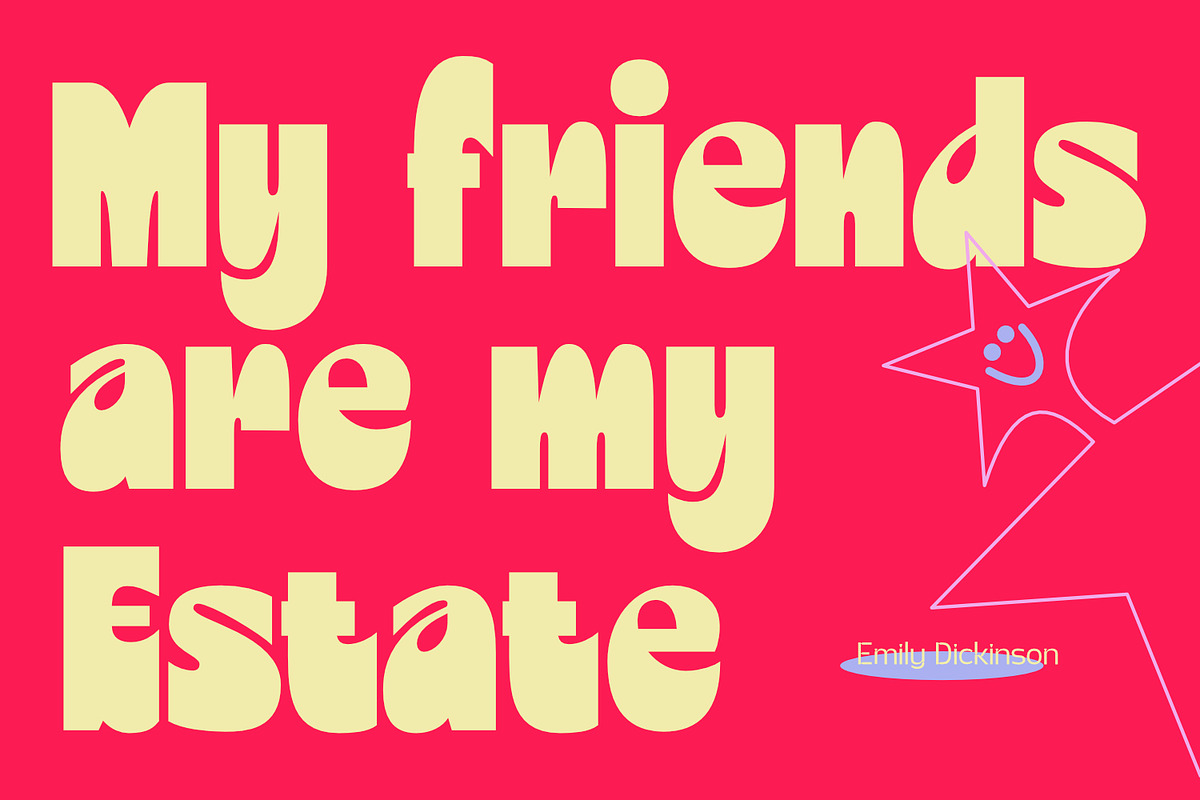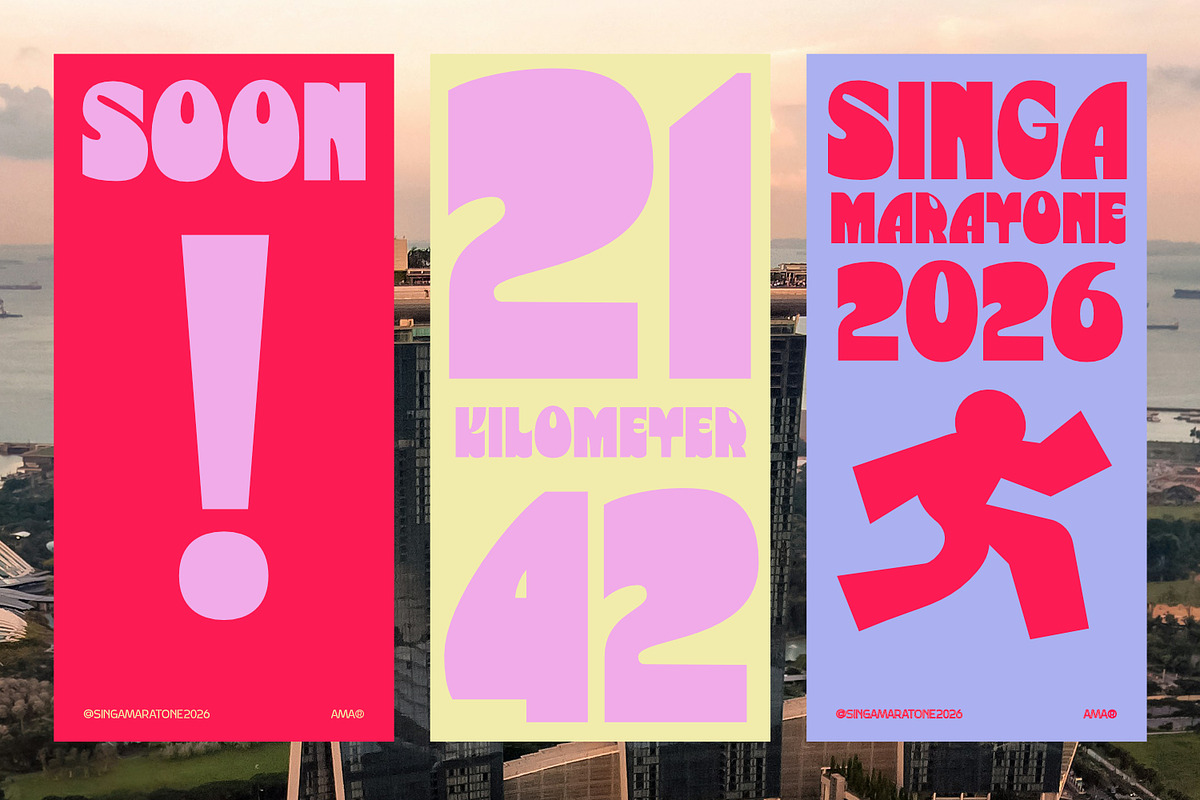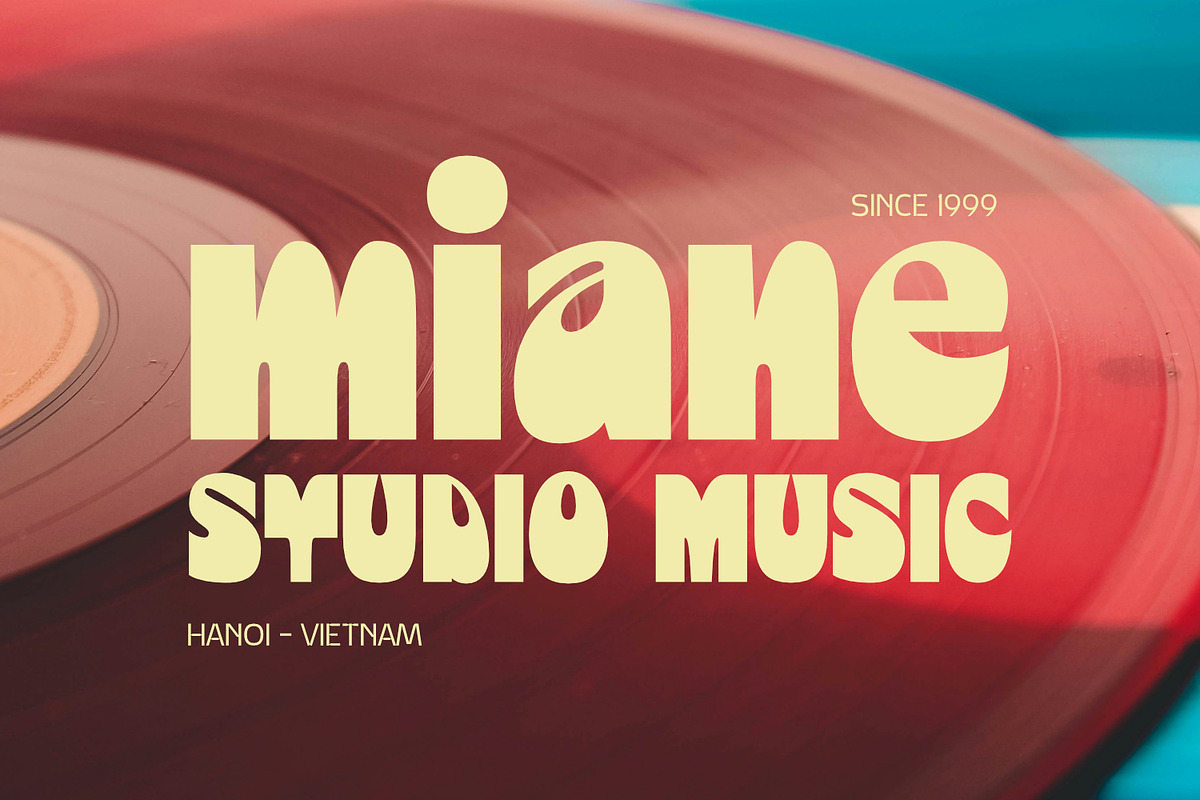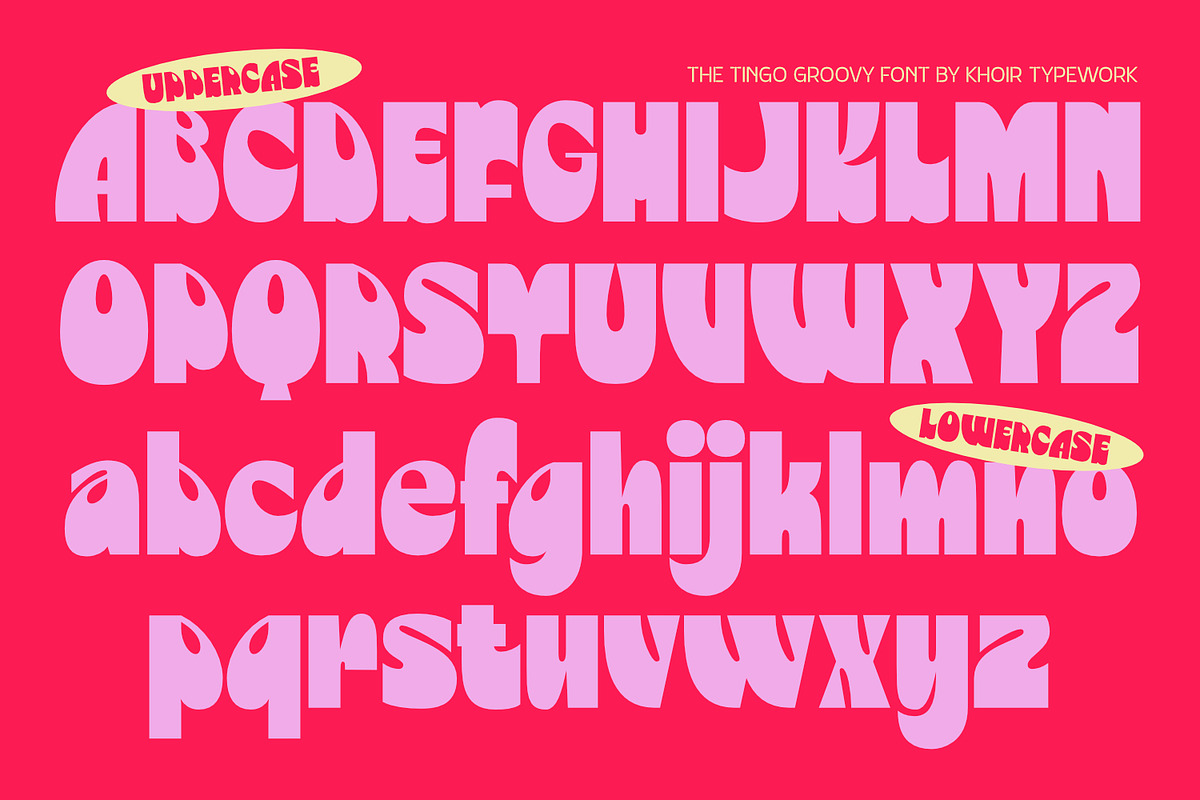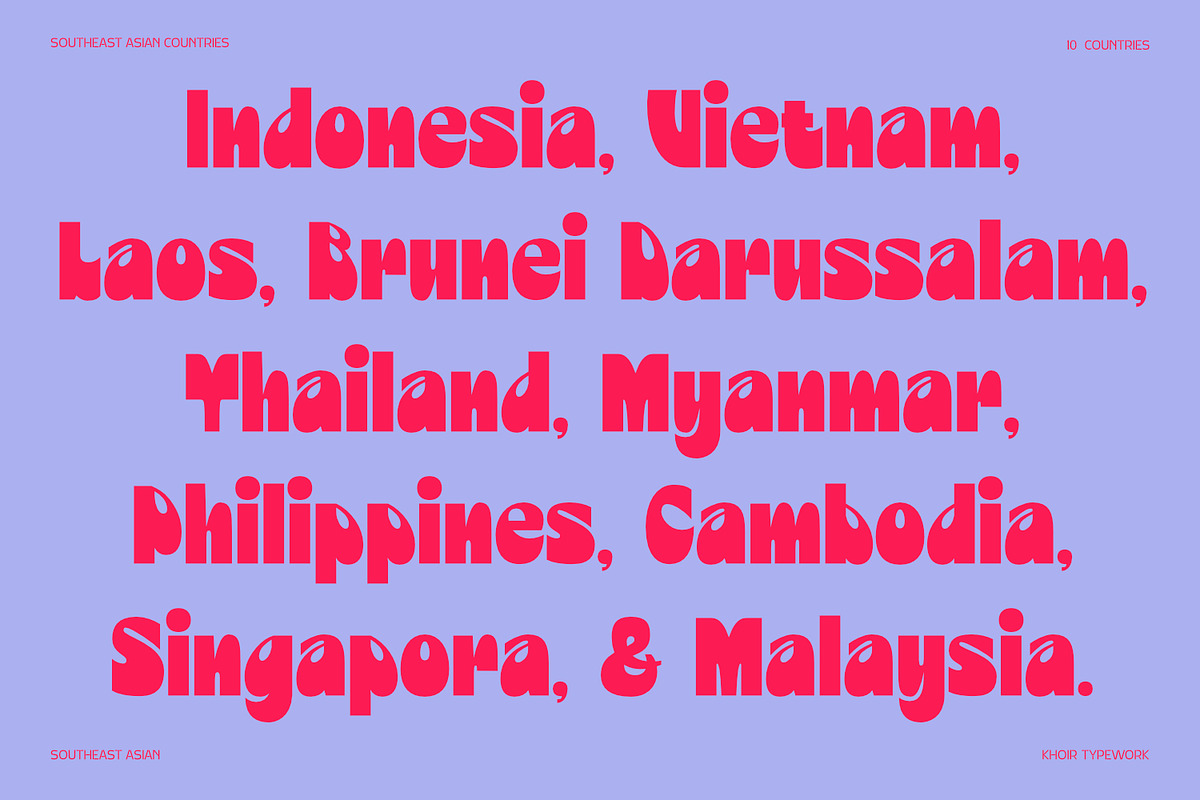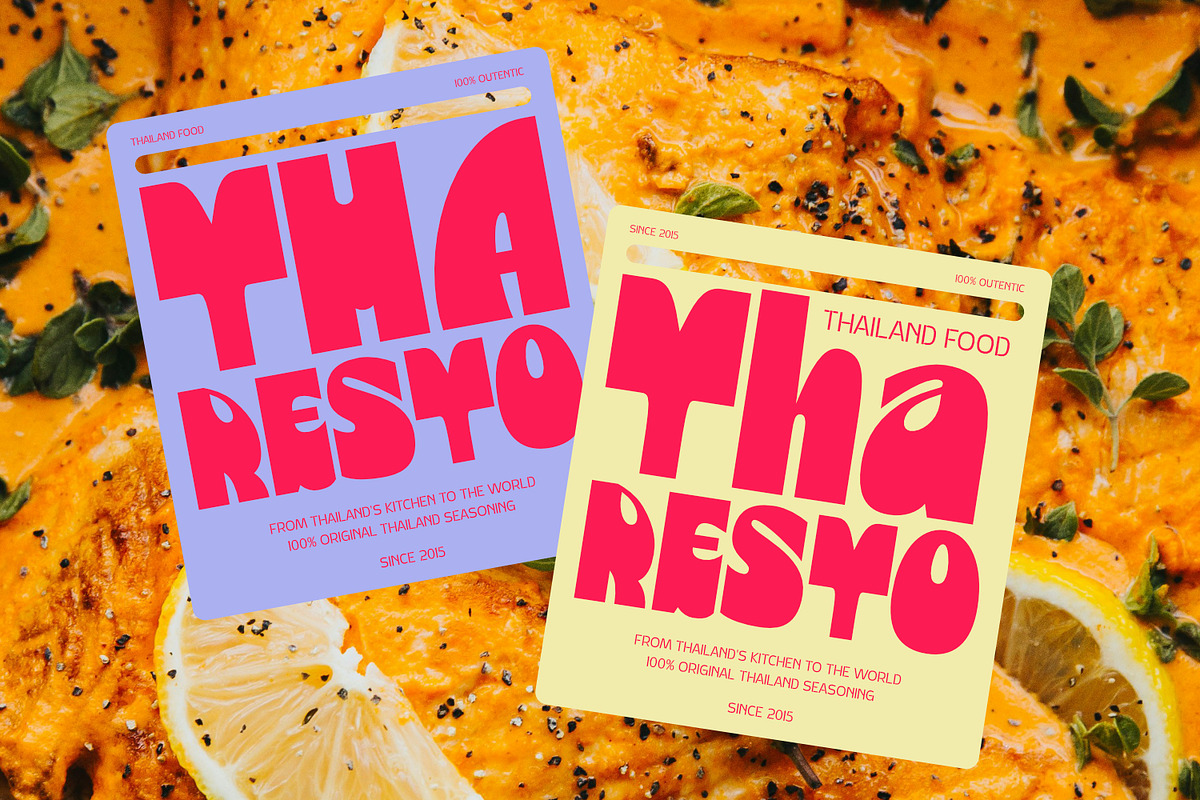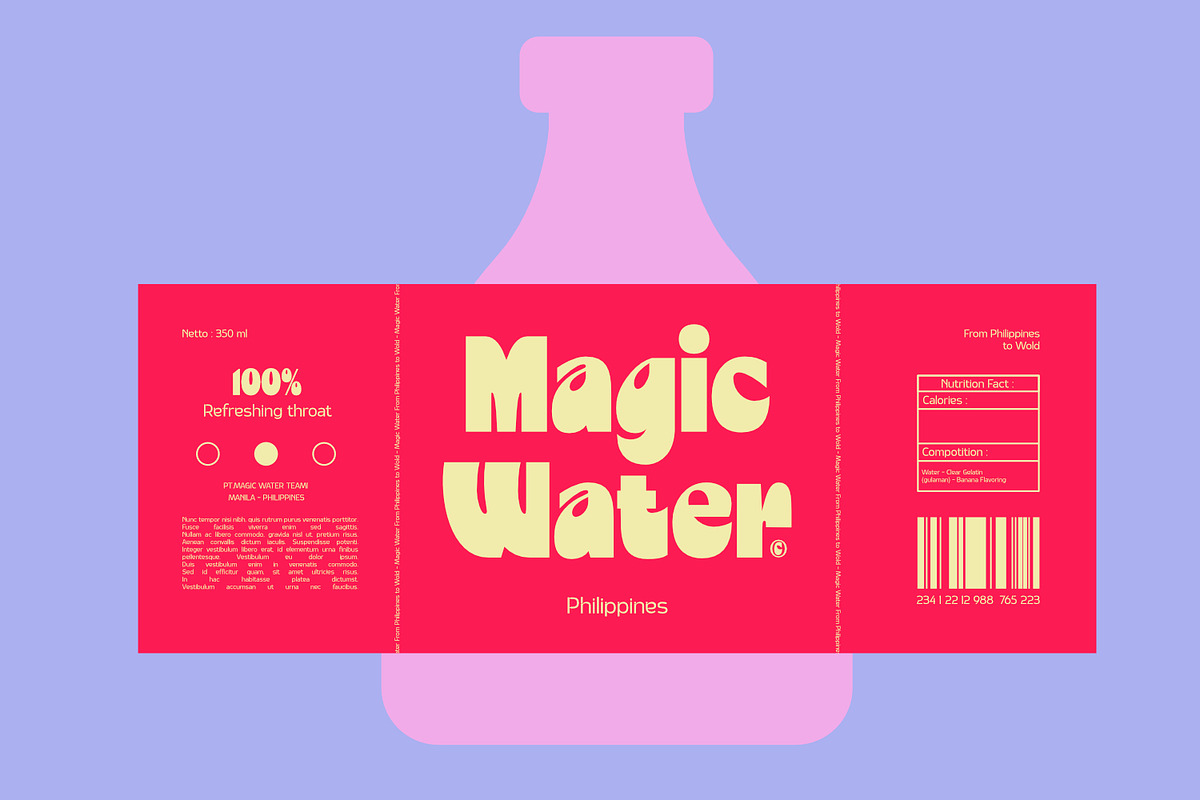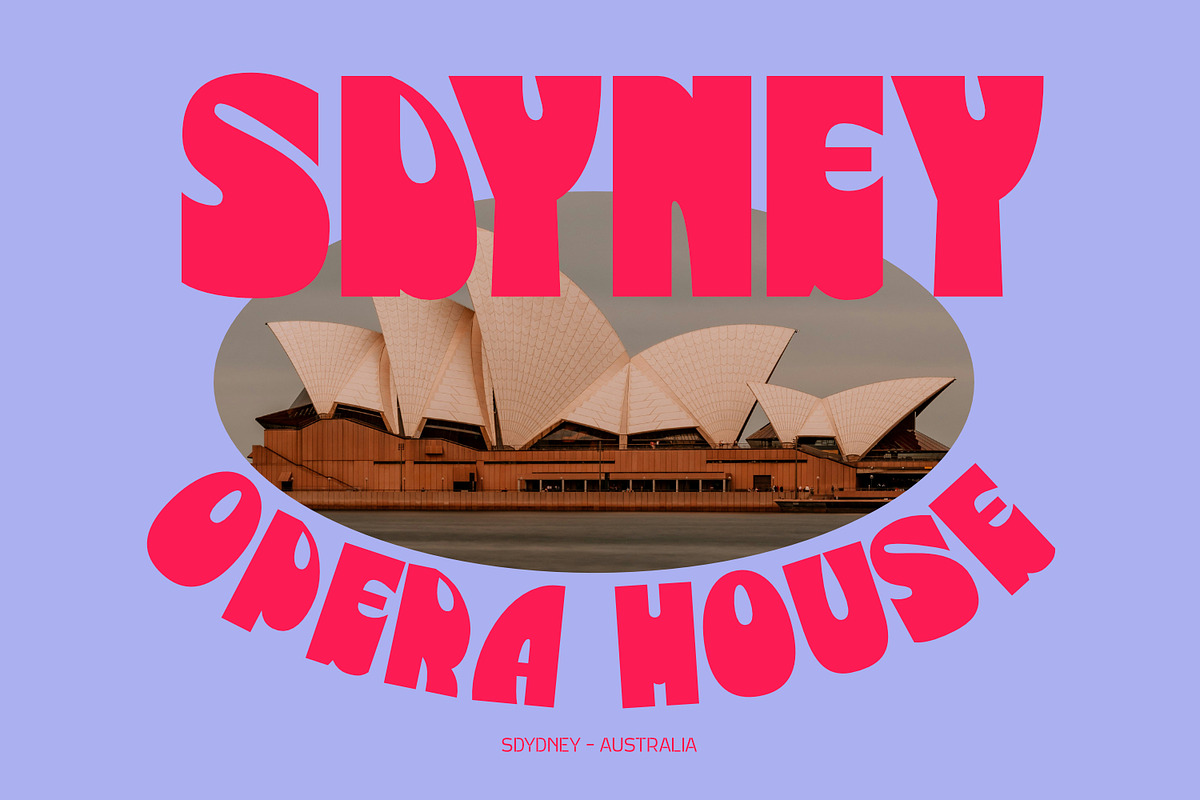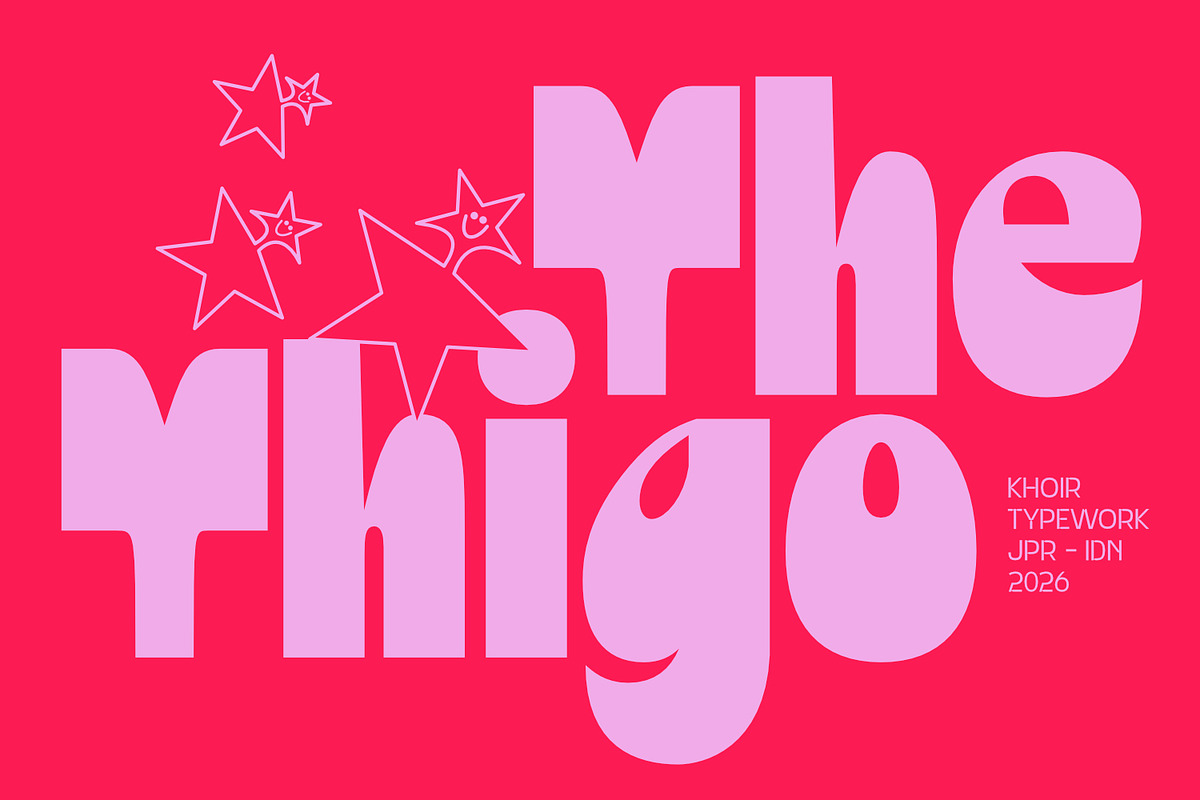
Thigo Bold Sans Serif
This iconic and fun bold sans font, with its soft, rounded letterforms, evokes a playful 60s feel. Its bold structure and gentle curves create a cheerful and warm feel, making it perfect for branding, logos, packaging, posters, social media, modern retro designs, and other fun designs.